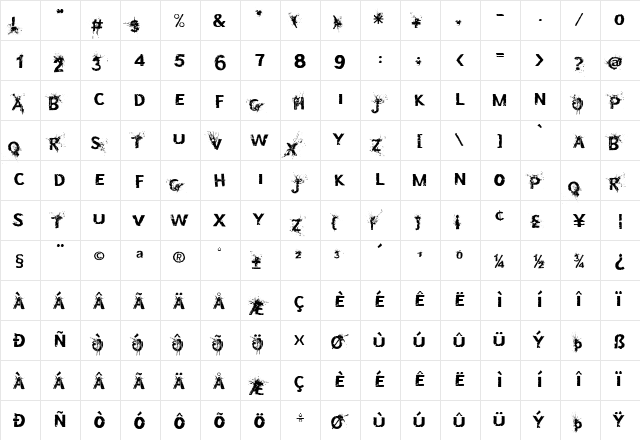
Bullet In Your Head Regular
Design Context for Bullet In Your Head Typeface
Bullet In Your Head is a composed and adaptable typeface that performs quietly and consistently across a wide range of design contexts.
Pro Tip: Use Bullet In Your Head in both headline and body roles to test its range before committing to a single application.